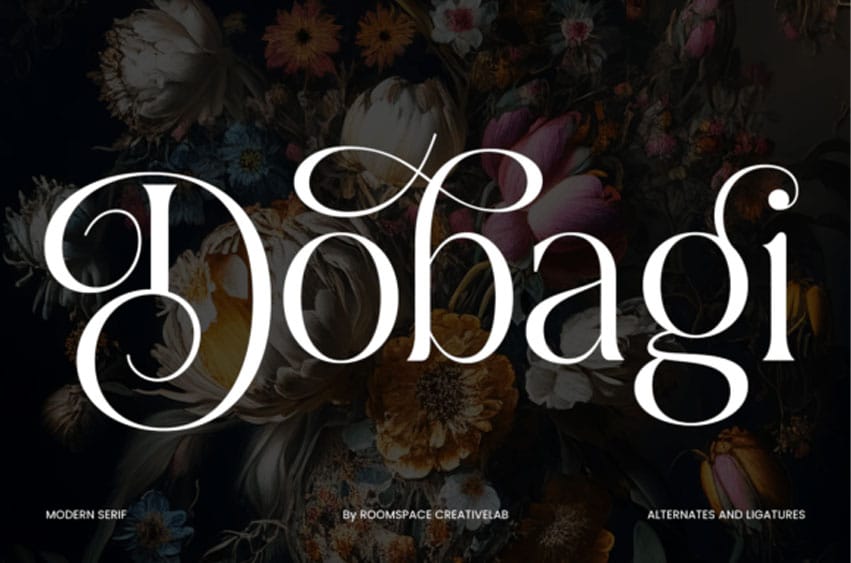
Dobagi Font is a modern serif font that embodies the perfect balance between luxury, elegance, and timeless design. Crafted with refined curves and bold details, it exudes sophistication while remaining versatile for a wide range of creative applications. Every letter is designed with precision, making it a font that feels both classic and contemporary.
Elegant Features That Elevate Design
Stylish Alternates: Add variety and creativity to your typography with graceful alternative letterforms.
Smooth Ligatures: Enhance flow and readability with beautifully designed ligatures.
Perfect Kerning: Ensures consistent spacing and flawless text presentation in every layout.
Strong Contrast: A balance of bold strokes and delicate curves, giving your designs a striking, high-end look.
Versatile Applications:
Dobagi is highly adaptable, making it suitable for both digital and print. Whether you’re creating bold branding or refined editorial designs, it brings sophistication and class to any project.
Logos & Branding: Elevate your brand identity with a timeless and luxurious aesthetic.
Packaging Design: Perfect for high-end products, cosmetics, fashion, or gourmet goods.
Wedding & Invitations: Add a touch of romance and grace to wedding suites, event stationery, and elegant cards.
Editorial Layouts: Enhance magazines, book covers, and fashion spreads with a modern yet classic serif look.
Digital Presence: Ideal for websites, social media, and digital ads seeking a premium, elegant style.
Why Choose Dobagi?
Combines luxury and readability in one typeface.
Offers modern refinement while keeping classic serif charm.
Works beautifully across minimal, bold, or ornate design concepts.
Adds a high-end, stylish edge to every design.
Perfect For Designers Who Want:
✔ A serif font that blends tradition and modernity
✔ Timeless elegance for premium branding
✔ Luxurious vibes for editorial and lifestyle projects
✔ Flawless typography in both print and digital media